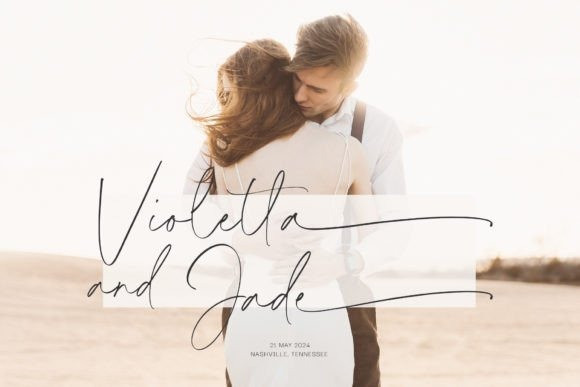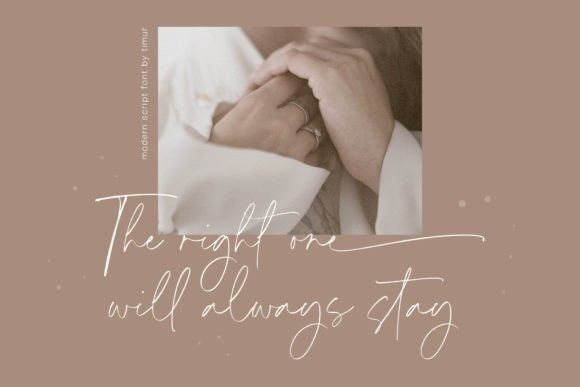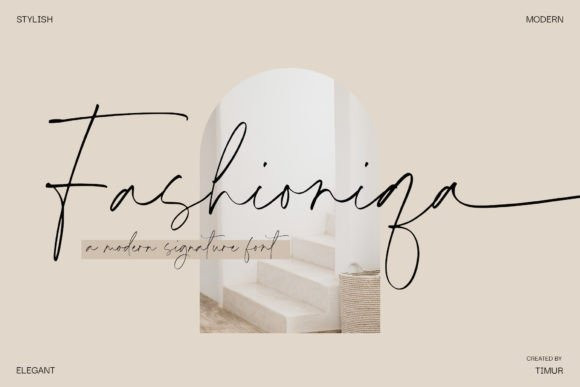
Fashioniqa Font
Fashioniqa Handwritten Font is a modern and romantic handwritten font, which was created with great care and specially created for you. Fashioniqa is perfect for product packaging, branding project, magazine, social media, wedding invitations, or just used to express words above the background.